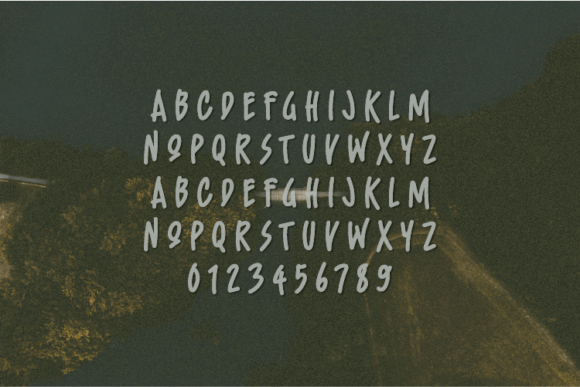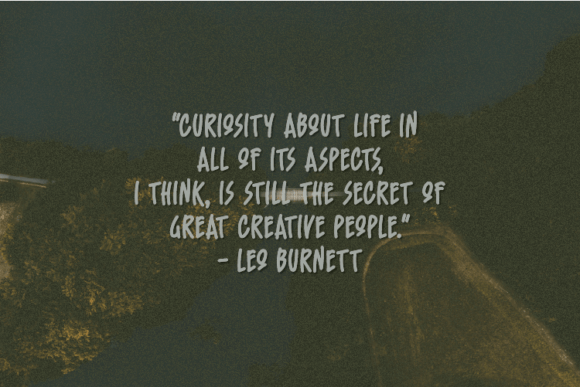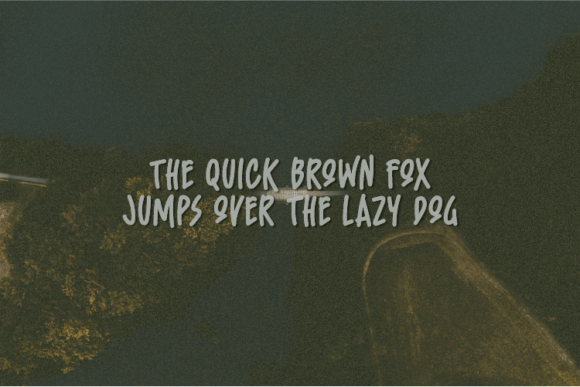
Introducing Florest Font: The Ultimate Handwritten Companion for Designers and Crafters
Are you tired of using the same old fonts for your designs and crafts? Look no further! Florest Font is here to revolutionize the way you approach typography. This fun and casual handwritten font is perfect for a wide range of projects, from digital designs to handmade crafts, presentations, and greeting cards. In this article, we’ll dive into the world of Florest Font and explore its features, benefits, and uses.
What is Florest Font?
Florest Font is a beautifully crafted handwritten font that exudes a sense of playfulness and friendliness. Its casual and approachable vibe makes it perfect for designers and crafters who want to add a personal touch to their work. Whether you’re creating a logo, social media graphics, or a handmade card, Florest Font is sure to bring a smile to your audience’s faces.
Key Features of Florest Font
- Handwritten style: Florest Font boasts a unique, handwritten style that’s perfect for adding a personal touch to your designs.
- Fun and casual: This font is designed to be fun and casual, making it ideal for projects that require a lighthearted approach.
- Versatile: Florest Font can be used for a wide range of projects, from digital designs to handmade crafts.
- Easy to read: Despite its playful nature, Florest Font is easy to read, making it perfect for body text and headings.
Benefits of Using Florest Font
So, why should you choose Florest Font for your next project? Here are just a few benefits of using this amazing font:
- Adds a personal touch: Florest Font’s handwritten style adds a personal touch to your designs, making them more relatable and engaging.
- Stand out from the crowd: With Florest Font, you can create unique and eye-catching designs that stand out from the crowd.
- Perfect for crafts: This font is ideal for crafters who want to add a professional touch to their handmade projects.
- Time-saving: With Florest Font, you can create stunning designs in no time, thanks to its easy-to-read and versatile nature.
Use Cases for Florest Font
So, how can you use Florest Font in your projects? Here are some ideas to get you started:
- Digital designs: Use Florest Font in your social media graphics, blog posts, and website designs to add a personal touch.
- Crafts: Add a professional touch to your handmade cards, scrapbook pages, and other crafts with Florest Font.
- Presentations: Make your presentations more engaging with Florest Font’s fun and casual style.
- Greeting cards: Create beautiful and personalized greeting cards with Florest Font.
Tips for Using Florest Font
Here are some tips for getting the most out of Florest Font:
- Experiment with colors: Florest Font looks great in a variety of colors, so don’t be afraid to experiment and find the perfect hue for your project.
- Mix and match: Combine Florest Font with other fonts to create a unique and eye-catching design.
- Play with sizes: Use Florest Font in different sizes to create visual interest and hierarchy in your design.
In conclusion, Florest Font is a versatile and fun handwritten font that’s perfect for designers and crafters. Its casual and approachable vibe makes it ideal for a wide range of projects, from digital designs to handmade crafts. With its ease of use, versatility, and unique style, Florest Font is sure to become your go-to font for all your design needs. So why wait? Give Florest Font a try today and take your designs to the next level!